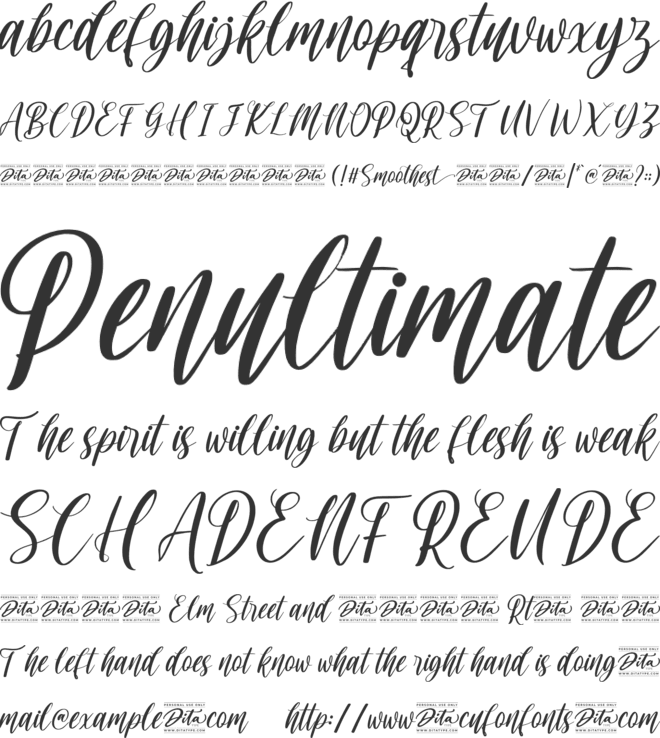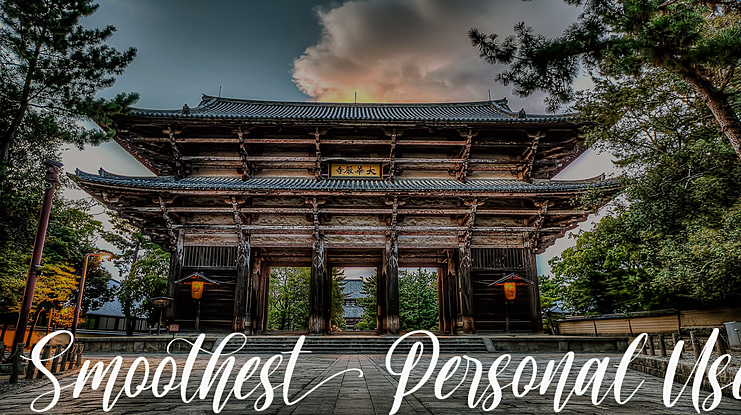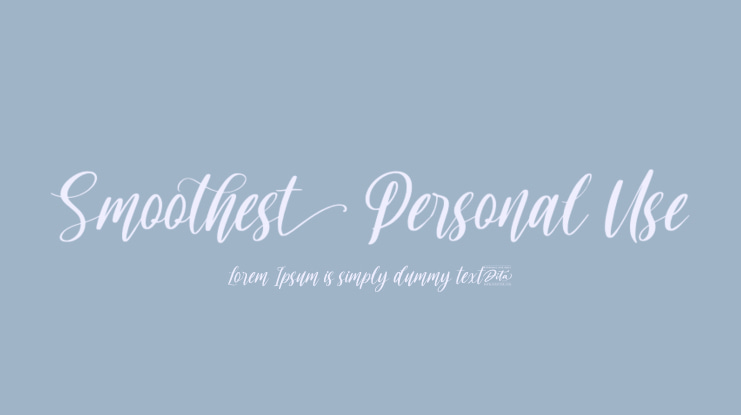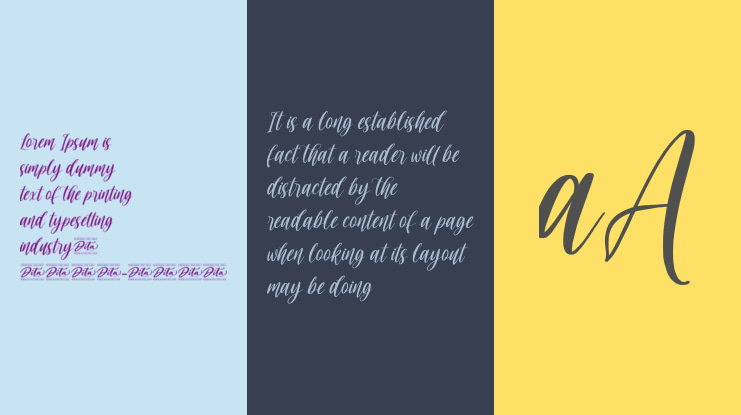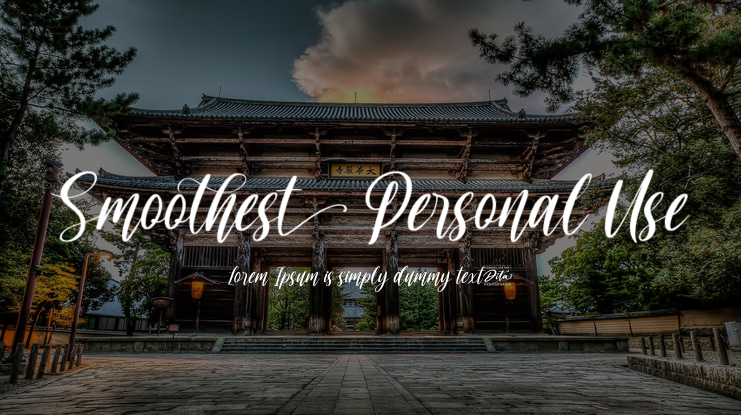
Smoothest is a modern handwritten font. With a classy and natural handwritten style, it brings a classy and chic typeface. Smoothest is best used for weddings, branding, logotype, and quotes.